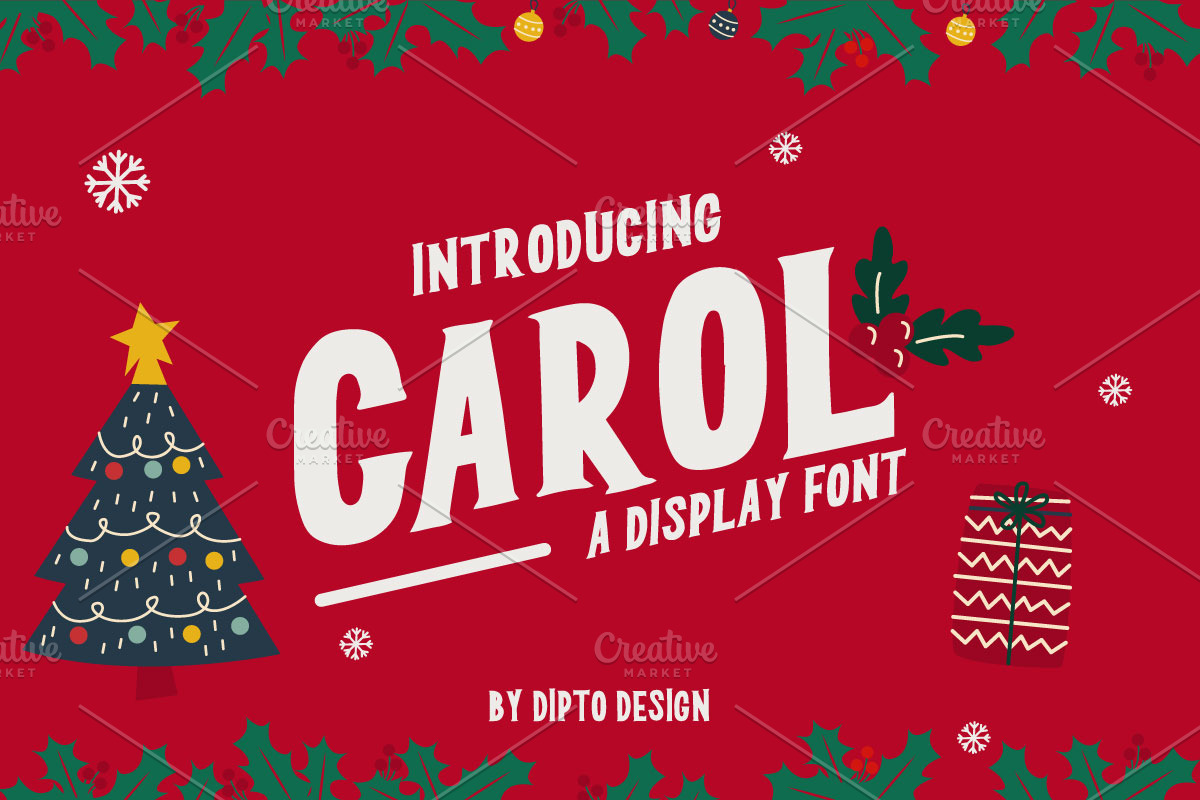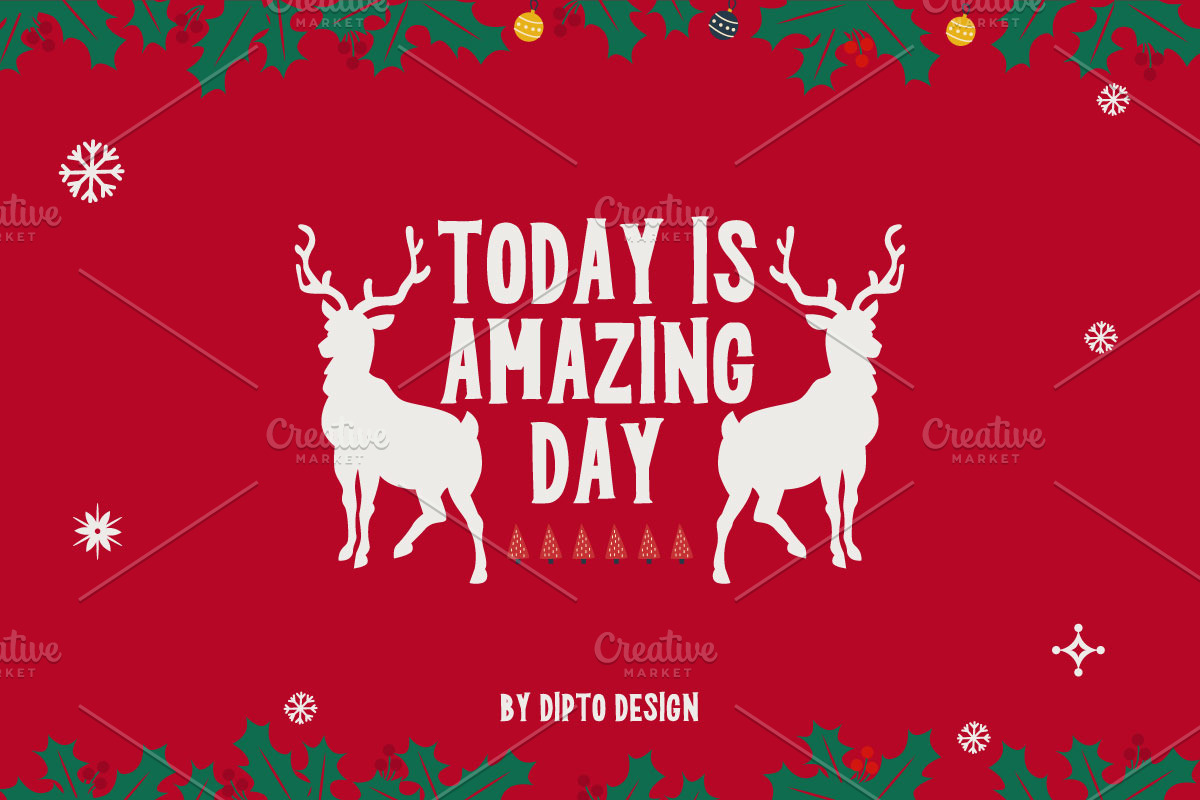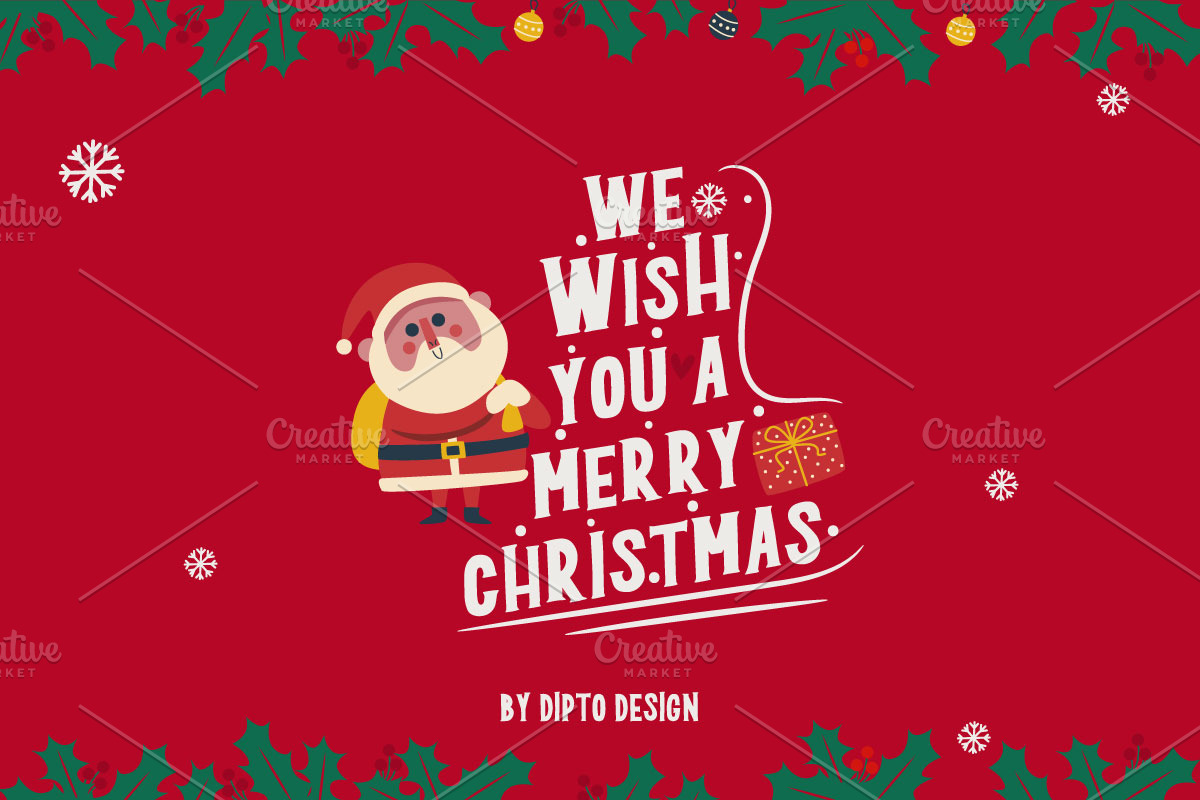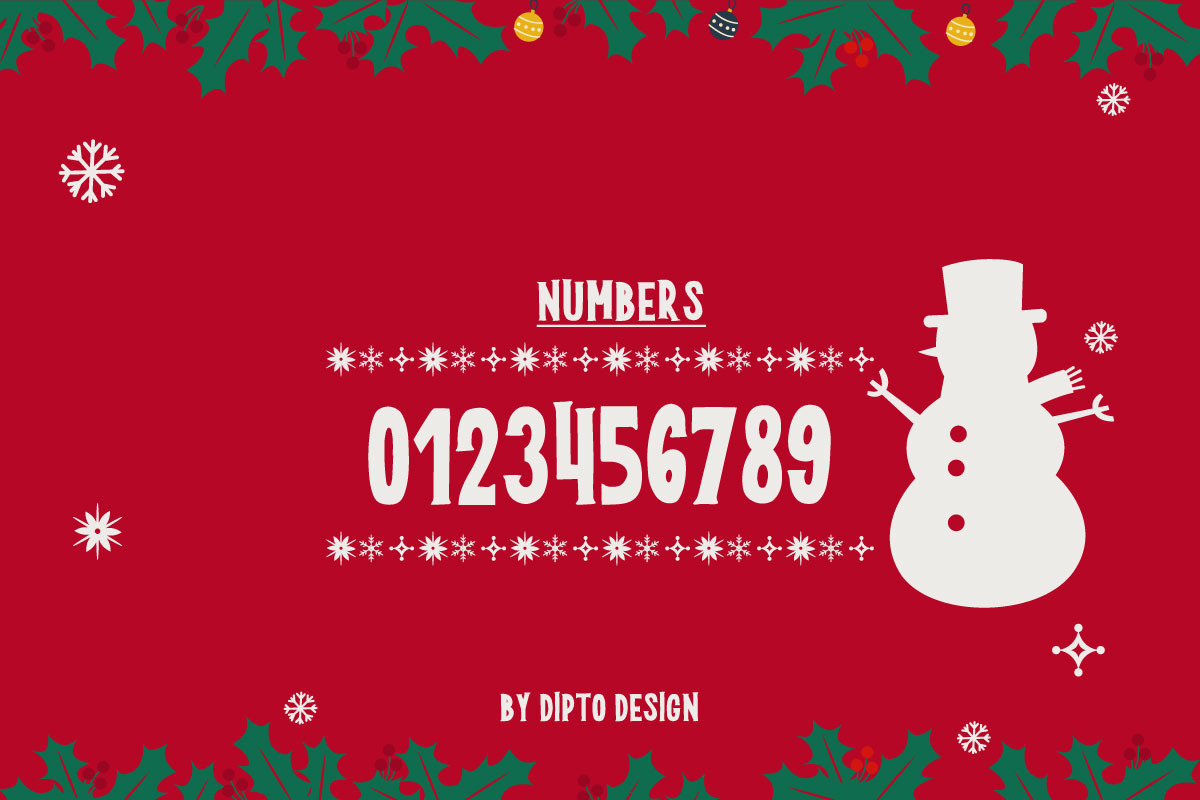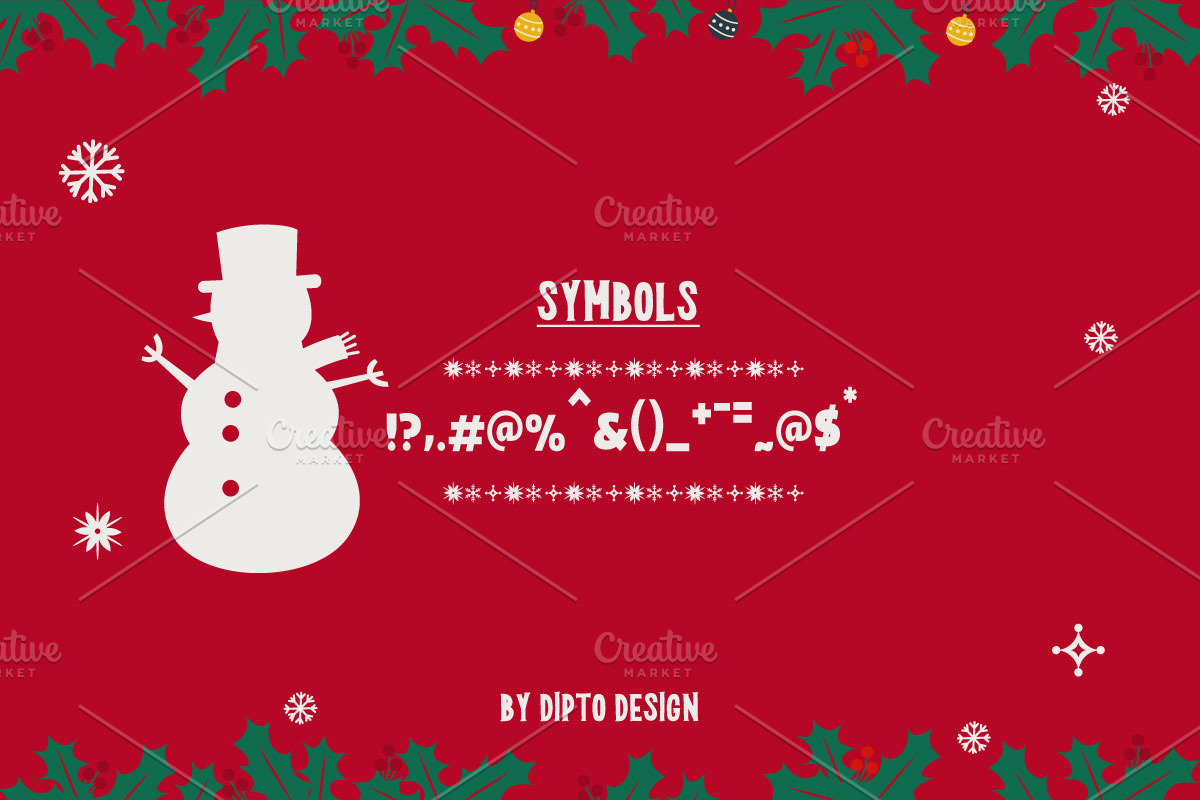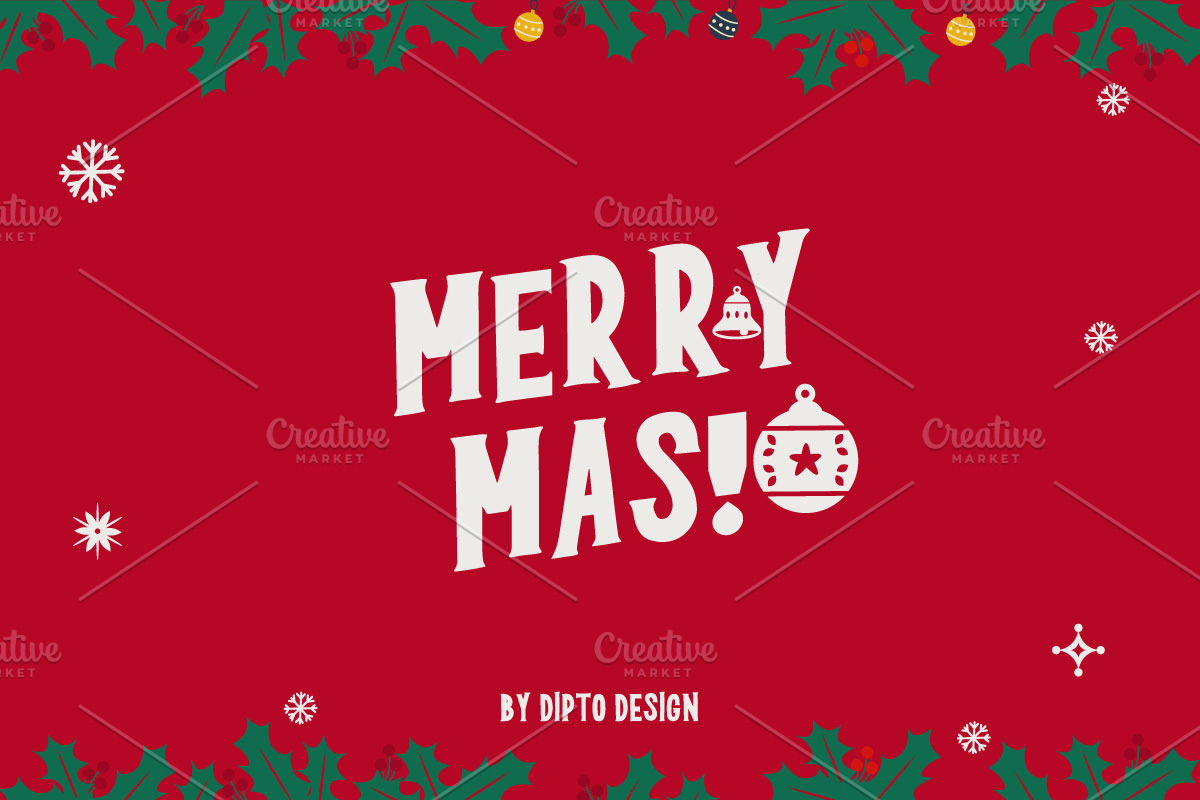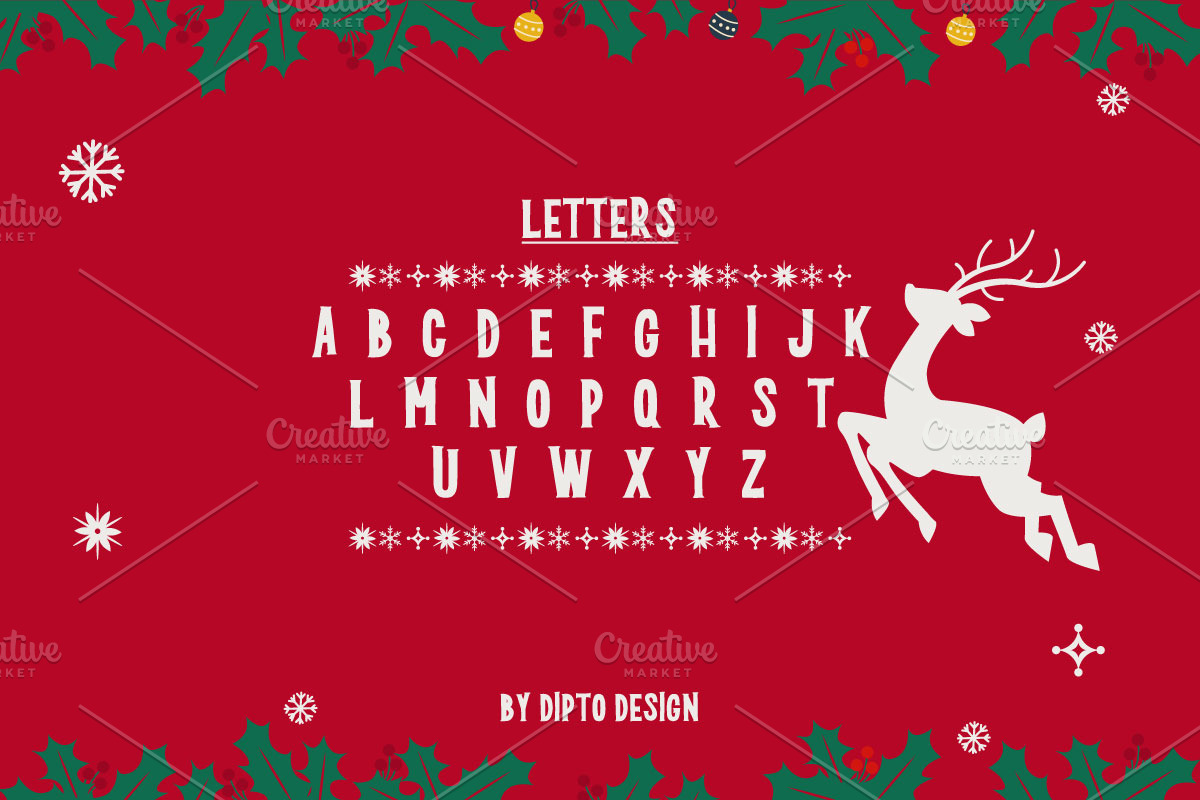
Carol- Christmas Typeface
🎄Spread festive cheer with Carol! Create holiday magic in every design. 🎅🌟
Carol Display FONT, from Dipto Design, is suitable for any projects such as logos, branding projects, homeware designs, product packaging, mugs, quotes, posters, shopping bags, t-shirts, book covers, name cards, invitation cards, greeting cards, label, photography, watermark, special events, and all your other lovely projects that need a beautiful taste.
Carol captures the essence of holiday cheer with its elegant yet merry letterforms. 🎅🌟
Create heartwarming greeting cards 💌, joyful invitations 🎉, and delightful banners 📜 that embody the season's spirit. 🎶
Embrace the magic of Christmas with Carol and spread joy in every word! 🌟🎁